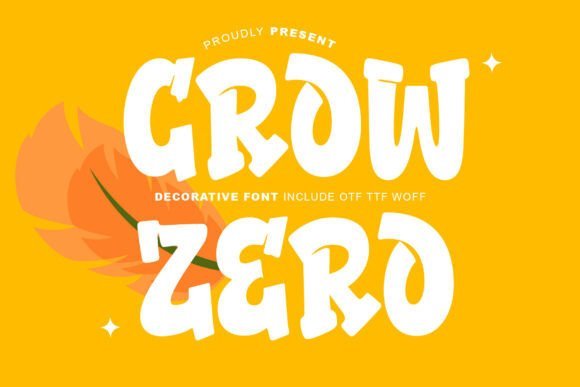
Introduction to Crow Zero Font
β€œGrow Zero” is a bold and dynamic decorative display font that radiates energy and creativity.
It features thick, chunky letterforms with a slightly irregular, hand-drawn feel, giving it a playful and organic character The design incorporates soft curves blended with sharp, expressive edges, making it stand out as a modern and friendly typeface.